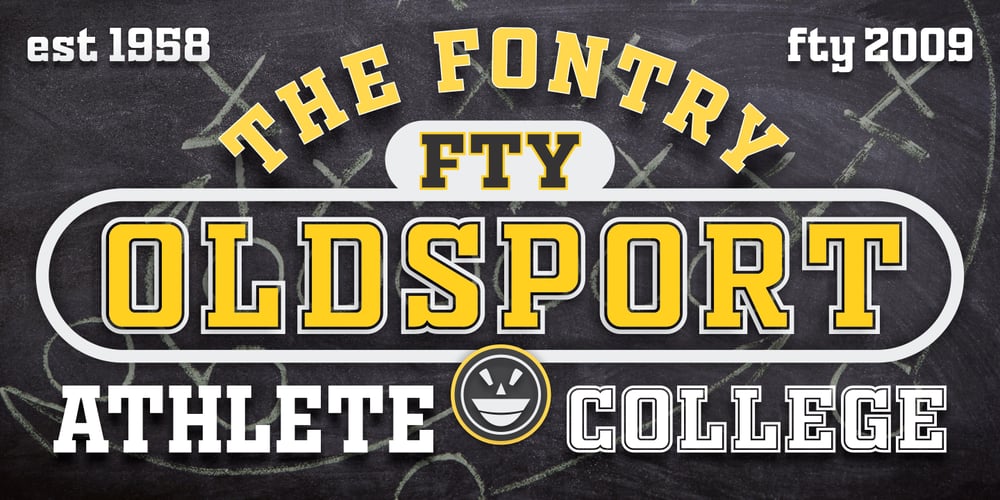
Fty OLD SPORT
Fty OLD SPORT font
Fty OLD SPORT Font Family was designed by Michael Gene Adkins and published by The Fontry. Fty OLD SPORT contains 6 styles and family package options. Beyond the halls of the ivy league, a vintage sport font from the days of old. A complete family for all of your layout needs. Includes a layered COLLEGE effect to stack up and command those team colors.